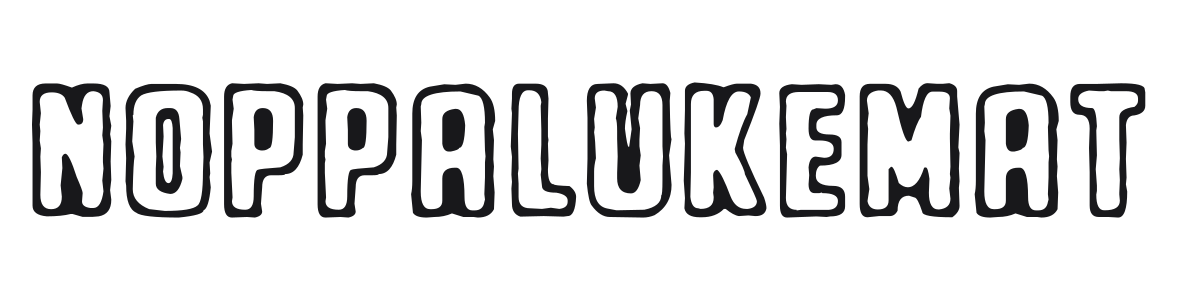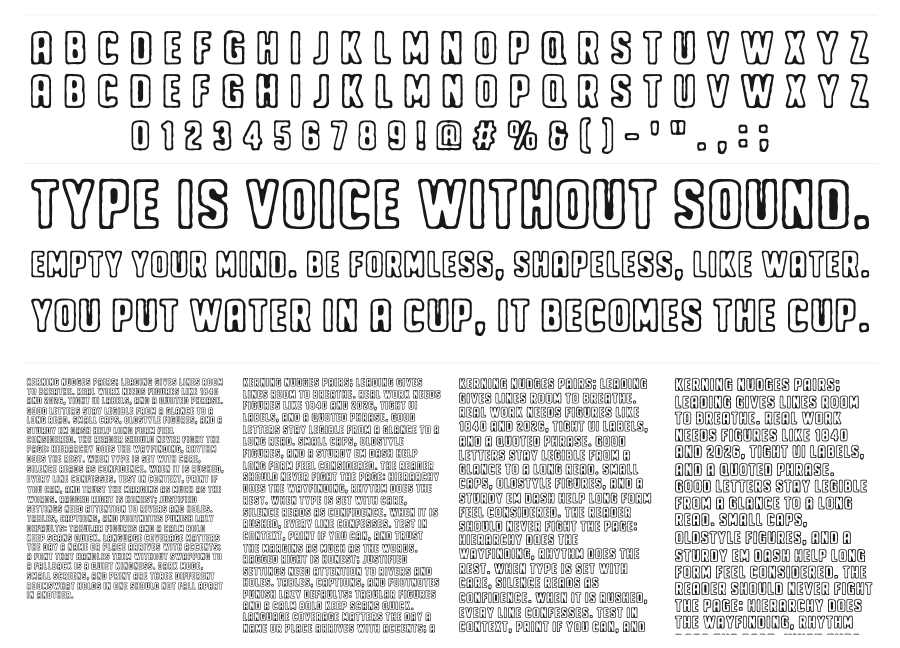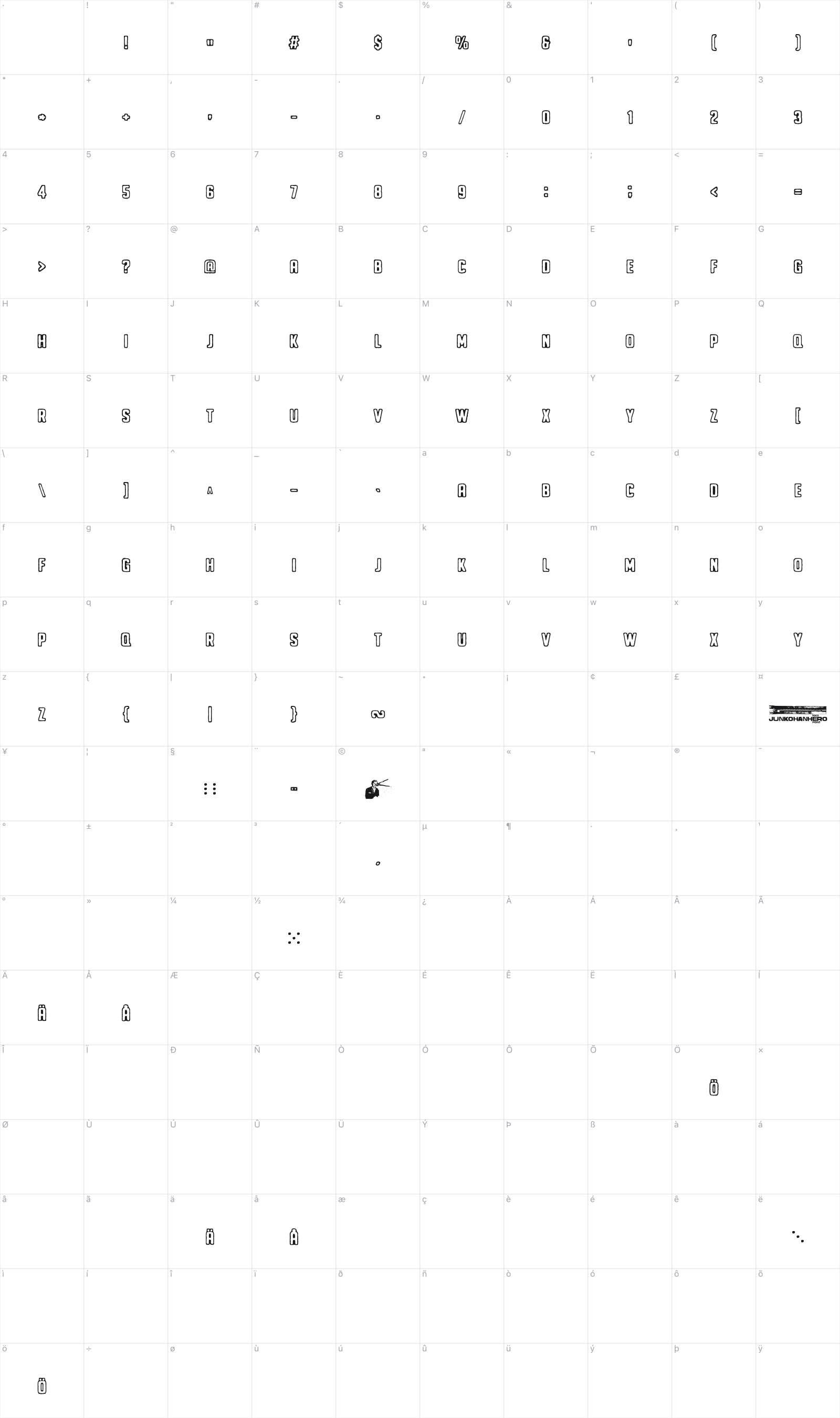
Noppalukemat
Noppalukemat is a chunky outlined display font with thick rounded strokes and a built-in inline white channel that gives each letter a hollow, three-dimensional pop. The uniform weight and soft corners push it firmly into cartoon and comic territory. It works best big, on posters, packaging, or anywhere a title needs to feel loud and approachable.